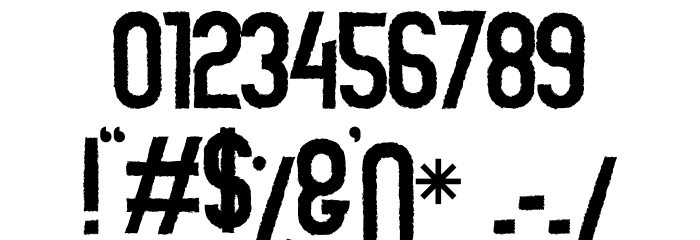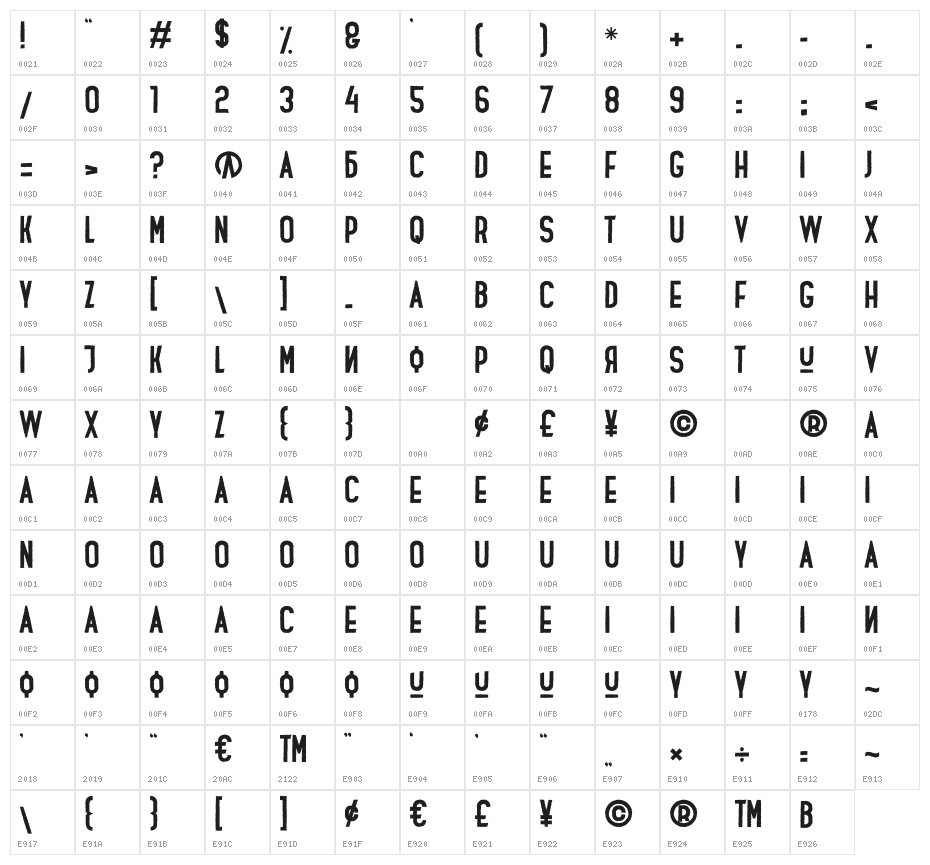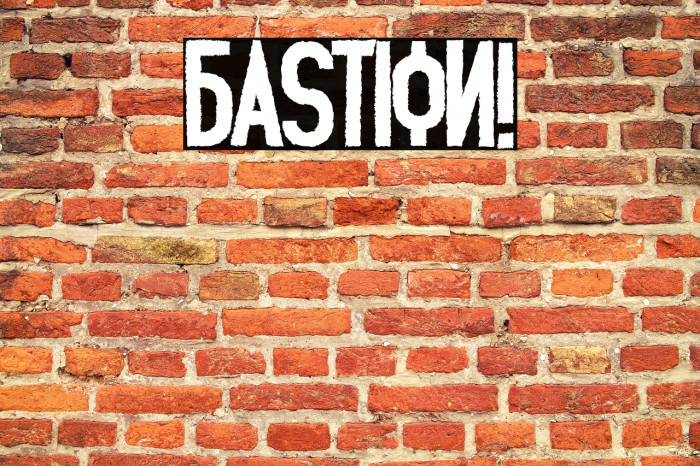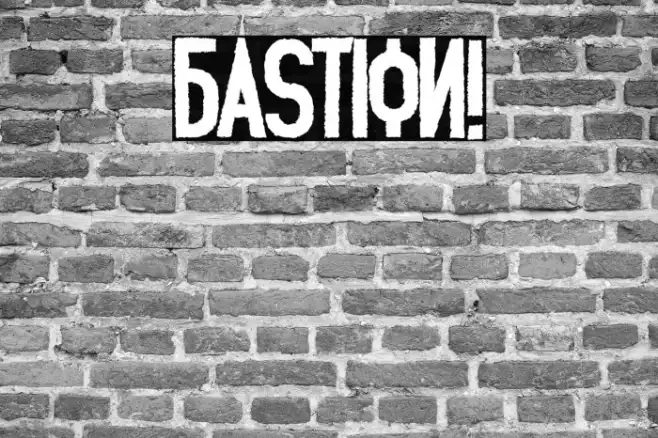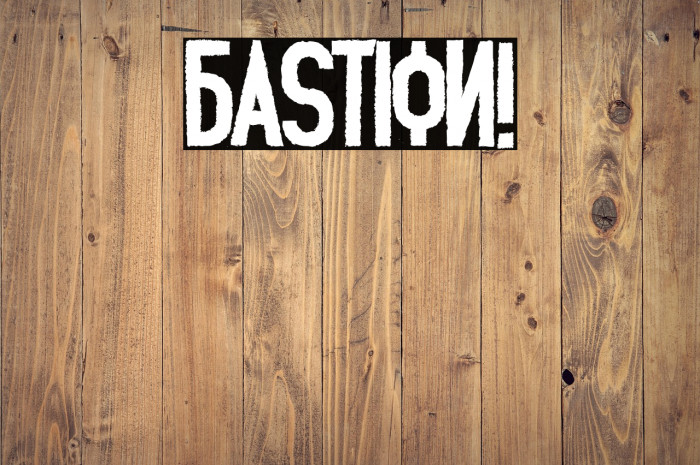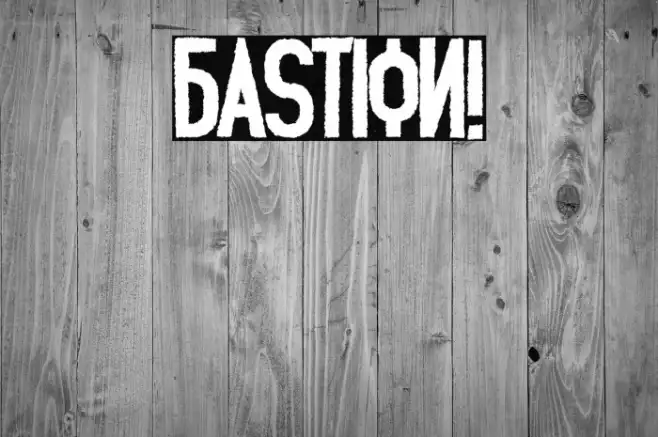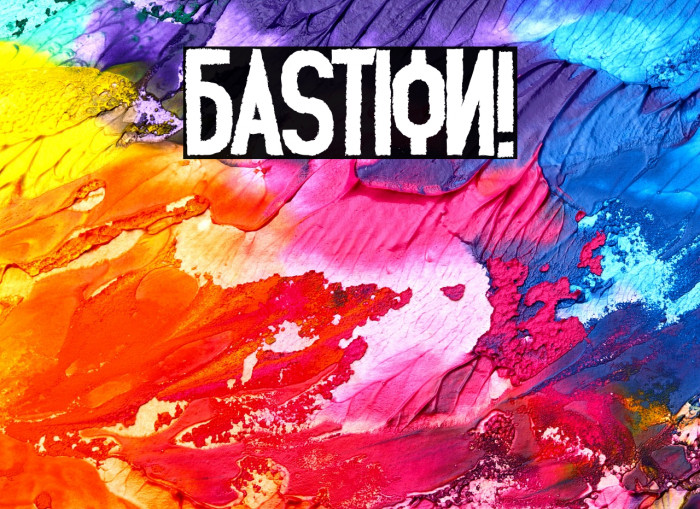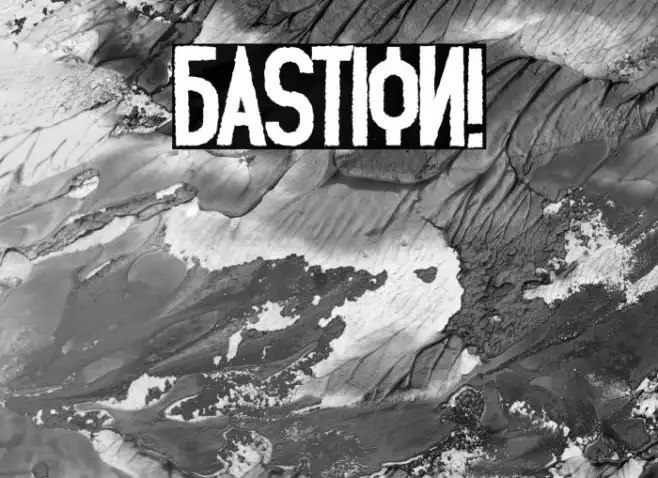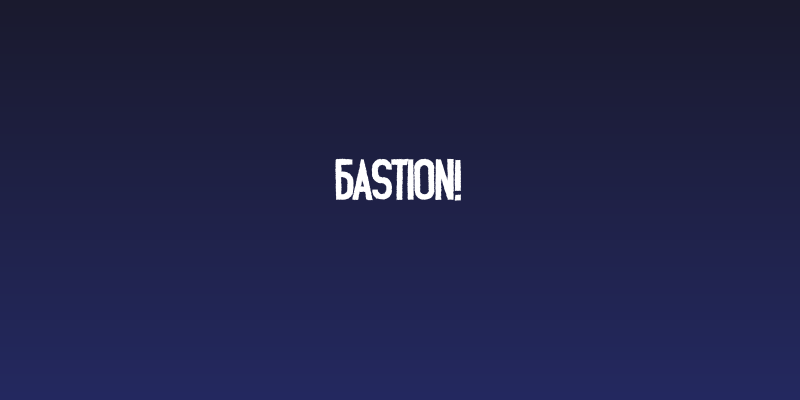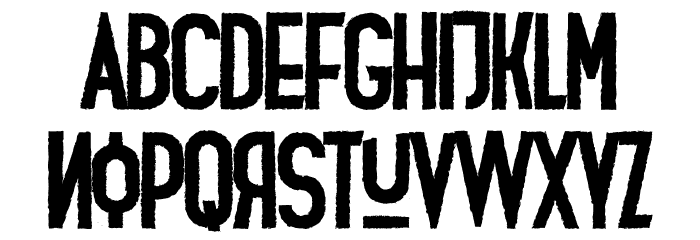
Bastion! Font
Bastion! Description
This font features a bold, condensed style with a strong presence. The characters are uppercase and have a slightly distressed texture, giving them a rugged and impactful appearance. The strokes are thick and consistent, providing a uniform look across all letters. The numbers and special characters maintain the same boldness and texture, ensuring cohesion throughout. This font is well-suited for designs that require a strong, eye-catching typeface with a vintage or industrial feel.
| Proposed Projects | Ideal for posters, logos, branding materials, and headlines that need a bold, vintage touch. |